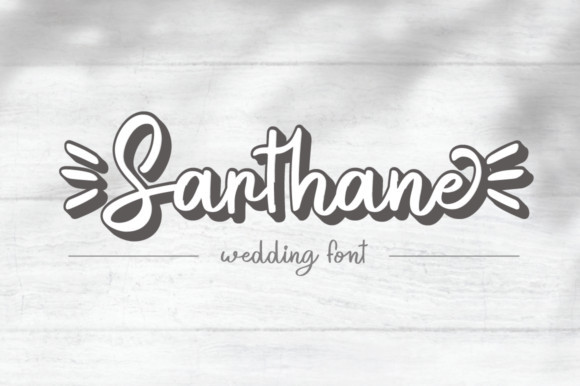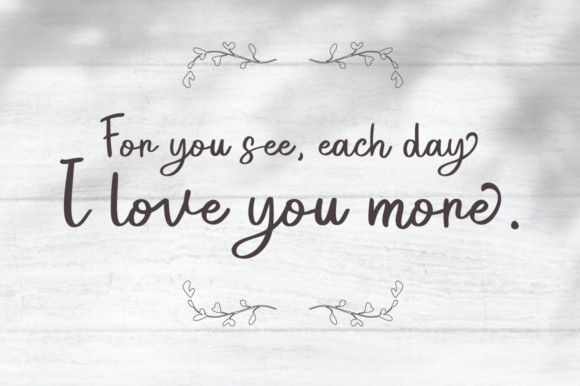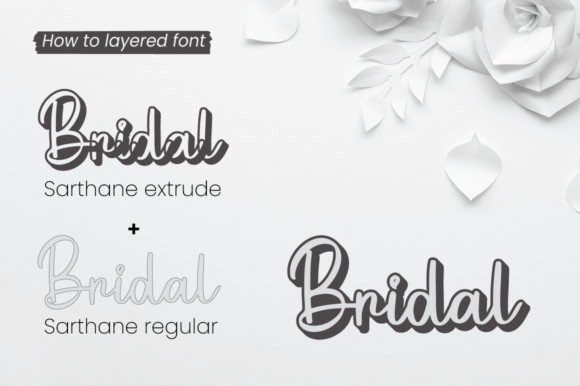
Sarthane Font
Sarthane is a lovely and delicate script font that exudes elegance and class. It looks stunning on wedding invitations, thank you cards, quotes, greeting cards, logos, business cards and every other design which needs a handwritten touch.